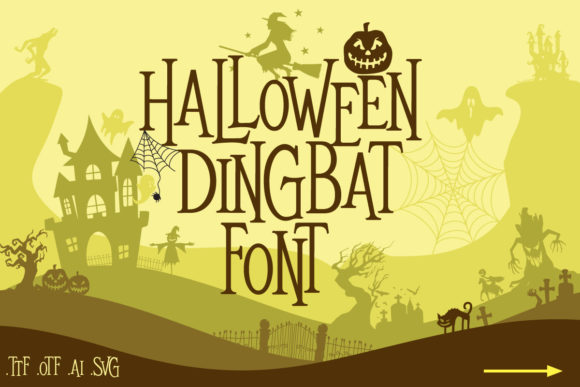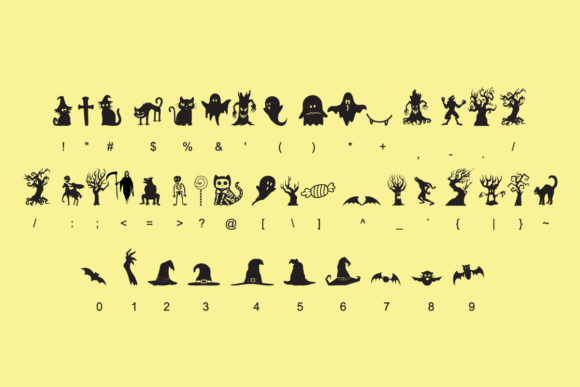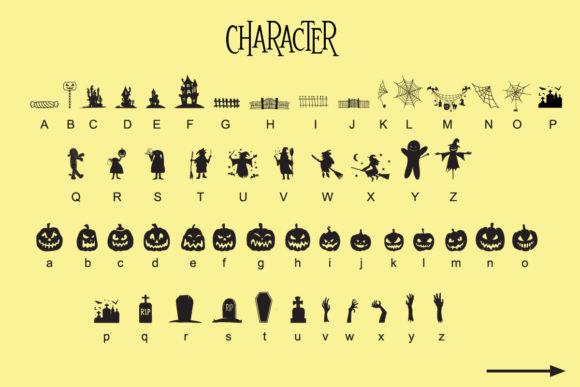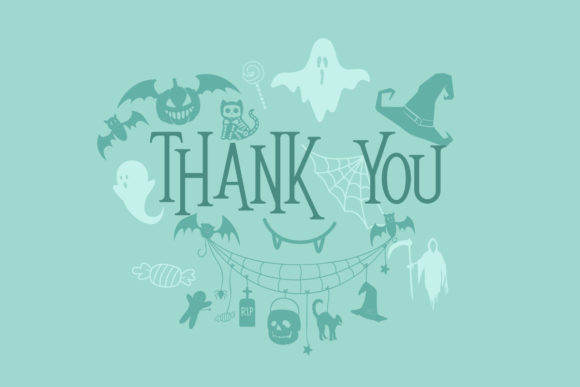
Mitoos Halloween Font
About the Mitoos Halloween Font
The Mitoos Halloween Font offers a perfect balance of form and function for your design needs. Mitoos Halloween is a grat dingbats font. It features beautiful and unique SVG illustrations. Take your Halloween’s projects to the next level with this amazing font!
Mitoos Halloween’s playful, slightly spooky SVG illustrations are ideal for Halloween-themed projects, particularly logos, posters, and short headlines. Its unique character makes it unsuitable for body text or large blocks of information; readability suffers at smaller sizes.
Consider pairing it with a clean sans-serif like Open Sans for contrast, or a more traditional serif like Playfair Display for a touch of classic elegance. These pairings help ground the whimsical nature of Mitoos Halloween, preventing visual overload.
The font’s overall personality is bold and whimsical, lending itself to brands seeking a fun, slightly mischievous aesthetic. Avoid using it for projects requiring sophistication or understated elegance.
Mitoos Halloween Font Usage Examples
Mitoos Halloween Font Example